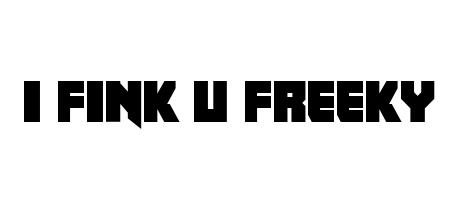
I fink u freeky
By Frederic
Impactful Urban Bold: The font used for "I FINK U FREEKY" is a bold, heavily condensed sans-serif typeface reminiscent of graffiti or street art styles. Its sharp, angular letterforms and consistent weight create a powerful, almost aggressive feel. The slightly uneven kerning (letter spacing) adds to its rough-edged, hand-painted aesthetic.